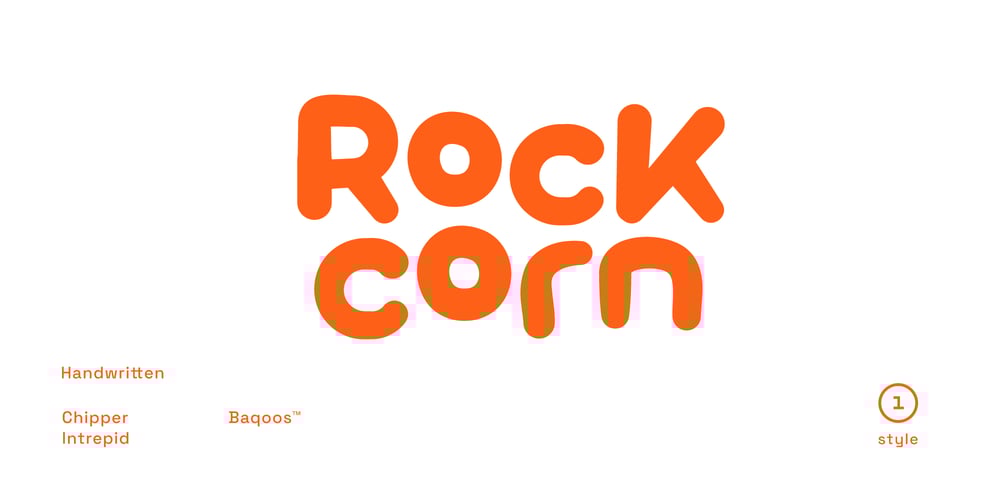
Rock Corn Font Family was designed by Andrew Seah and published by Baqoos. Rock Corn contains 1 styles and family package options. Rock Corn is a chipper intrepid handwritten typeface apt for headline, editorial, branding, packaging, printed materials and typographic applications. 200+ glyphs including punctuation and numerical.